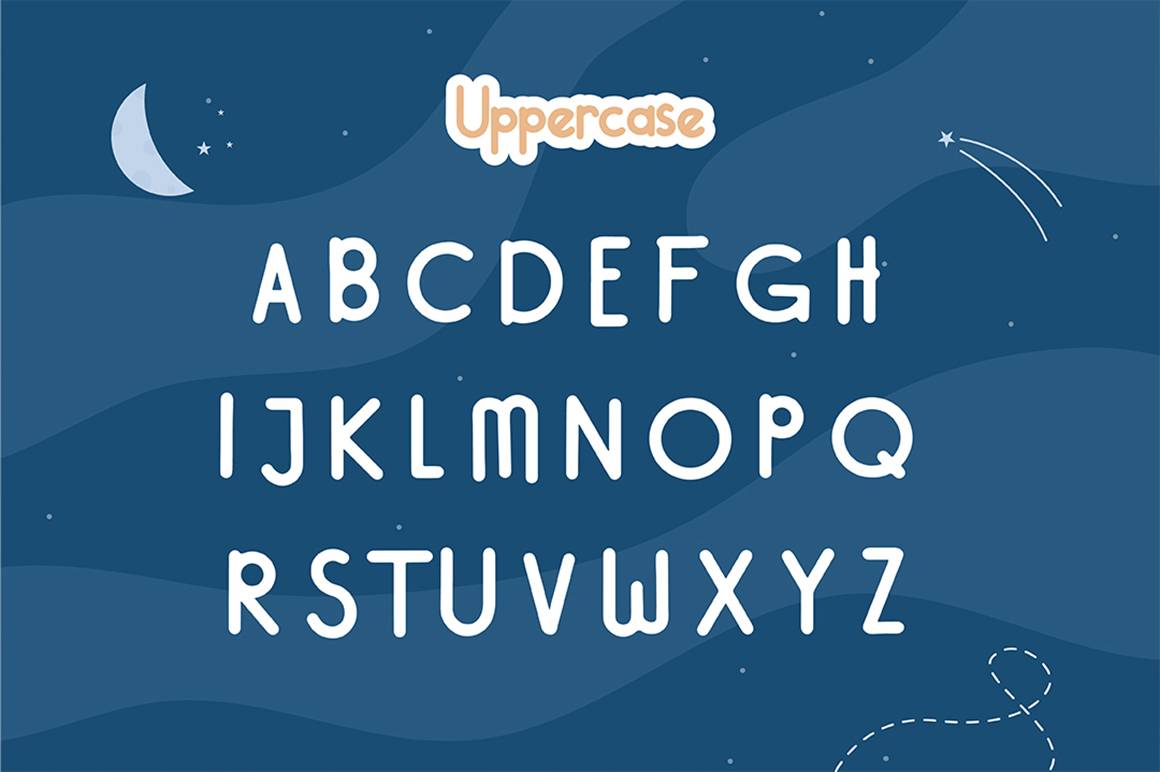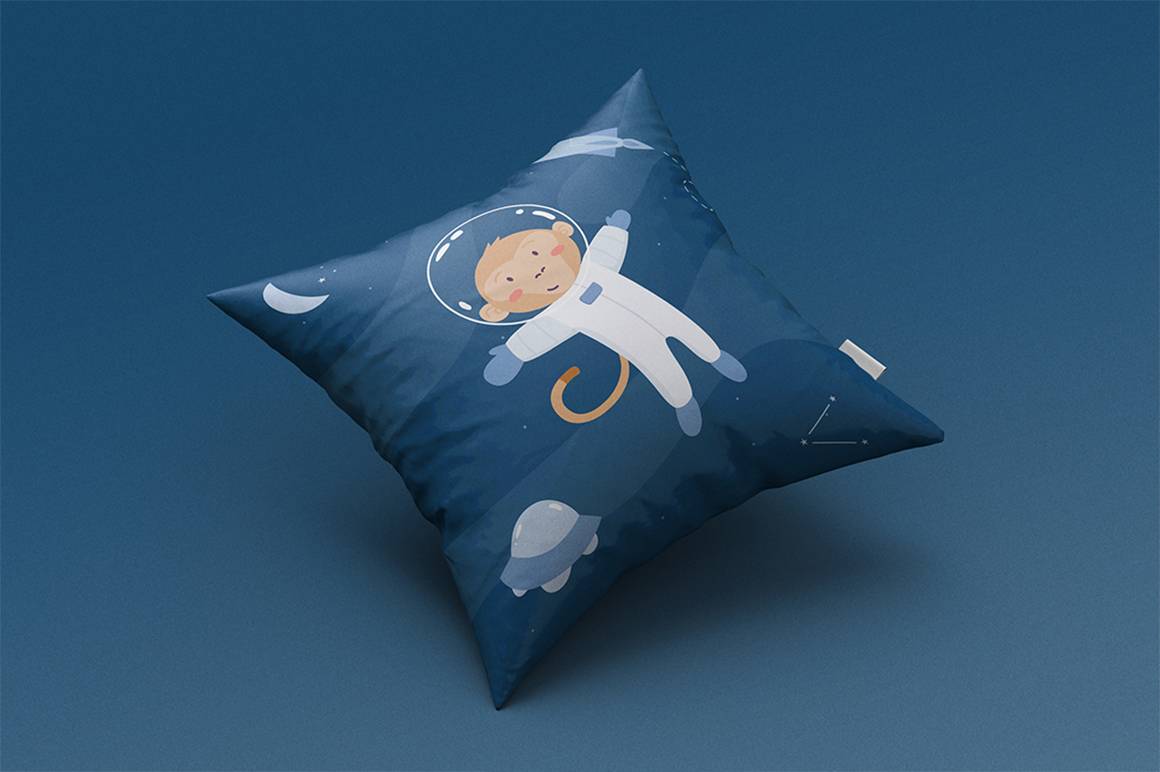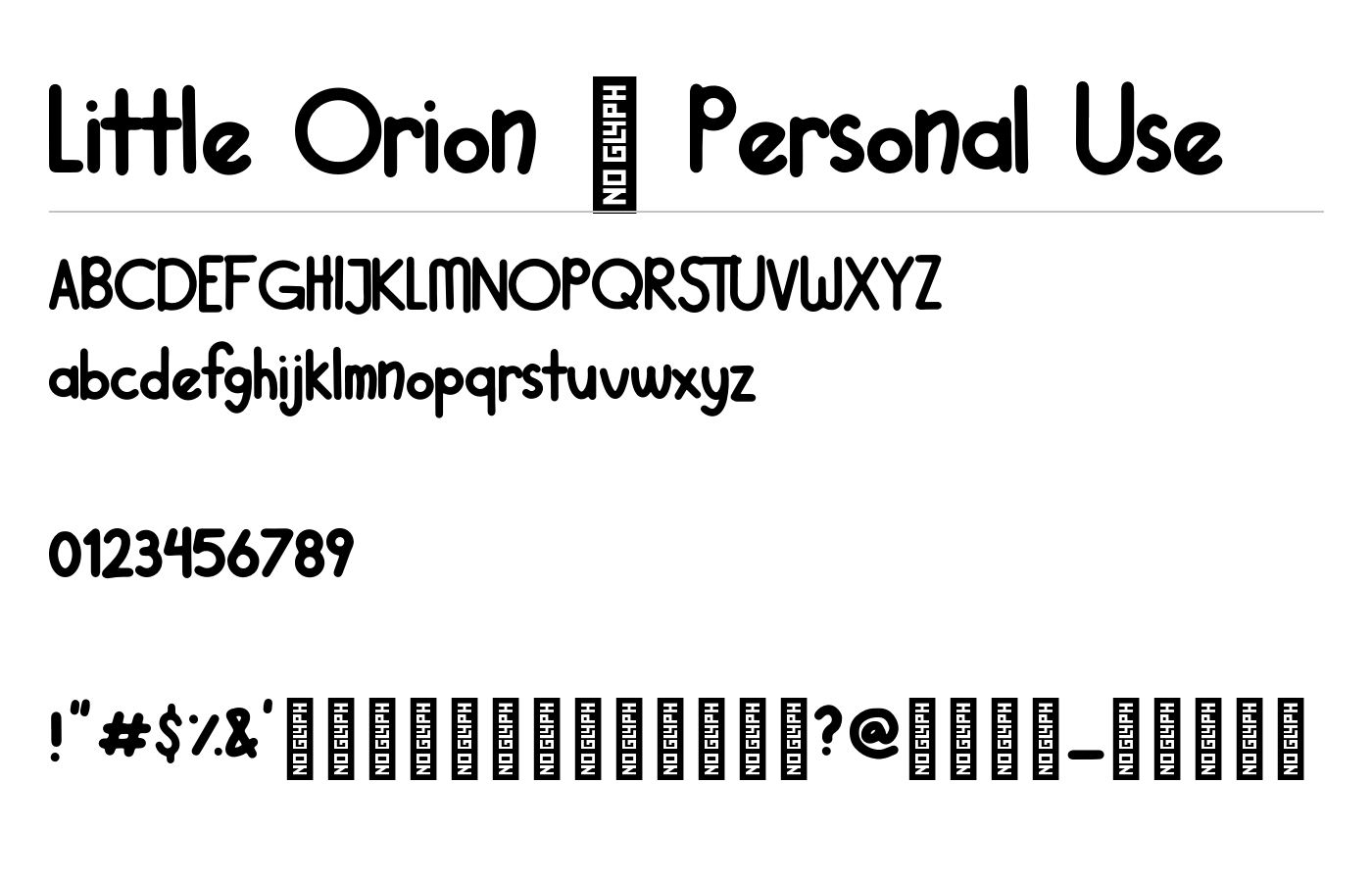
Little Orion is a playful, rounded sans serif font with a friendly, informal style that features consistent medium weight and a slightly tall x-height for easy readability. Its smooth, soft stroke endings and quirky letterforms give it a casual, approachable feel, making it ideal for children's books, creative projects, or fun branding that seeks a warm, inviting look. This font works best in headlines, logos, or any design needing a touch of personality and lightheartedness.
Little Orion Font
About Little Orion Font